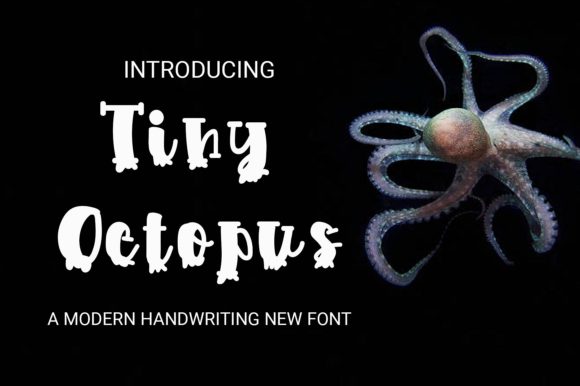
Behold the Tiny Octopus Font family—a quirky and playful display font that oozes charm and uniqueness. Step into a world where creativity flourishes, and visual expression takes center stage. Unleash your imagination and dive into a sea of possibilities with this captivating font.
Tiny Octopus is not just another font; it's a gateway to a world where your designs come alive with a touch of whimsy and wonder. Whether you're crafting eye-catching logos, playful headings, or enchanting t-shirts, this font is your trusty companion. Its versatility knows no bounds, extending from sophisticated letterheads to captivating signage, from vibrant labels to intriguing posters.
Picture this: Your brand's logo, adorned with the Tiny Octopus Font, exudes a welcoming and approachable aura that instantly connects with your audience. Headings and titles, infused with the font's lively personality, grab attention and set the tone for an extraordinary reading experience. Your designs will resonate with a warmth and playfulness that leaves a lasting impression.
The Tiny Octopus Font family isn't merely a collection of letters; it's an invitation to explore a realm of boundless creativity. Each character dances with a unique charm, adding a touch of magic to your projects. Let your imagination run wild as you create badges, news articles, and posters that captivate and inspire.
With Tiny Octopus, you'll embark on a creative journey like no other. Discover new horizons of visual expression and transform your designs into captivating masterpieces. Dive into the depths of creativity and let your imagination soar to new heights.